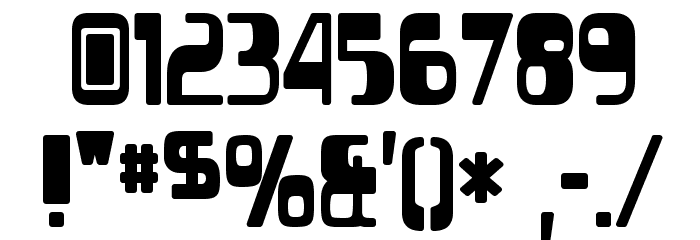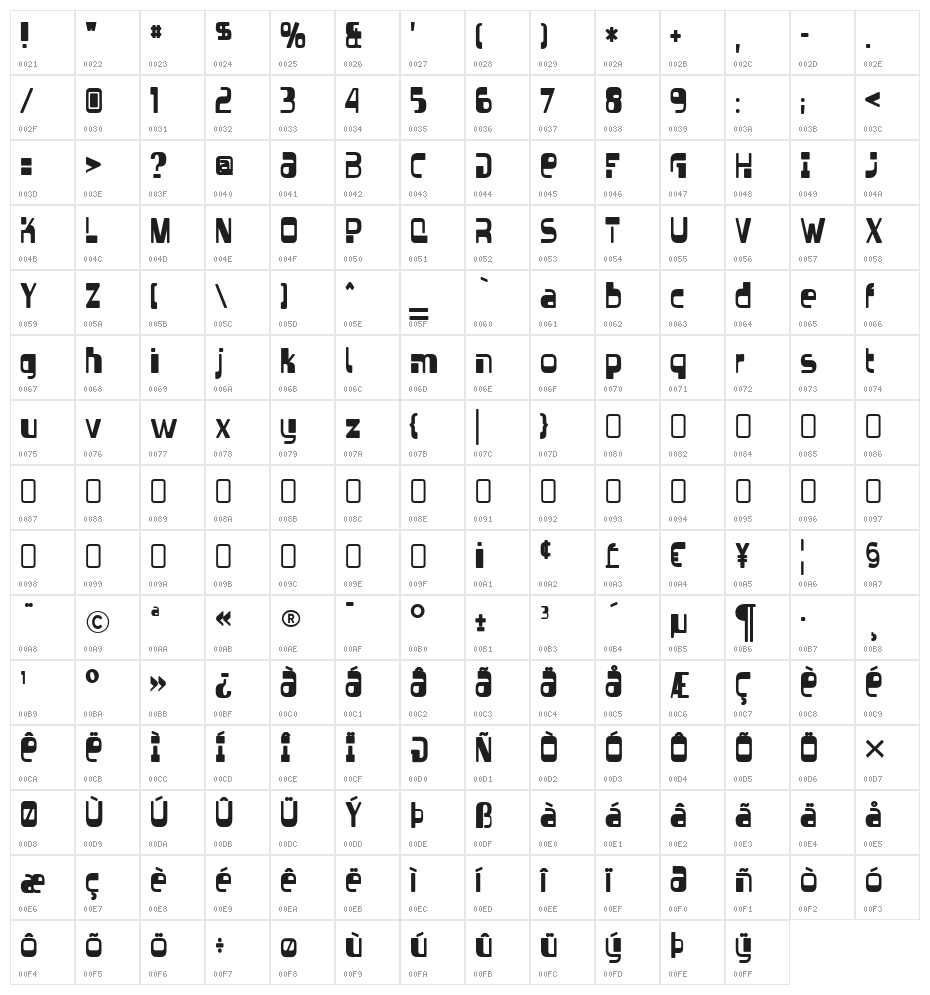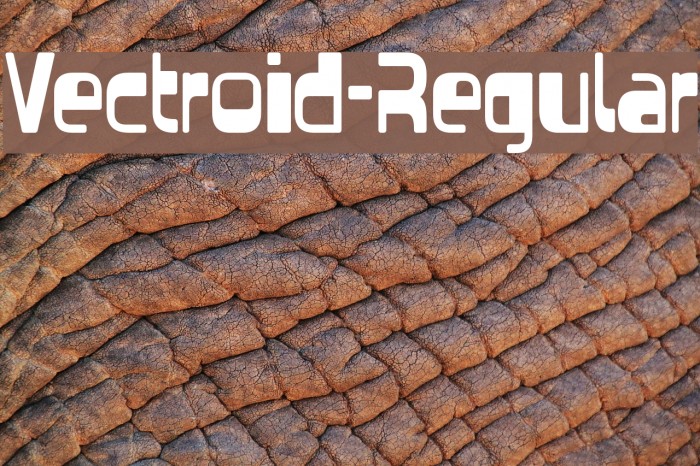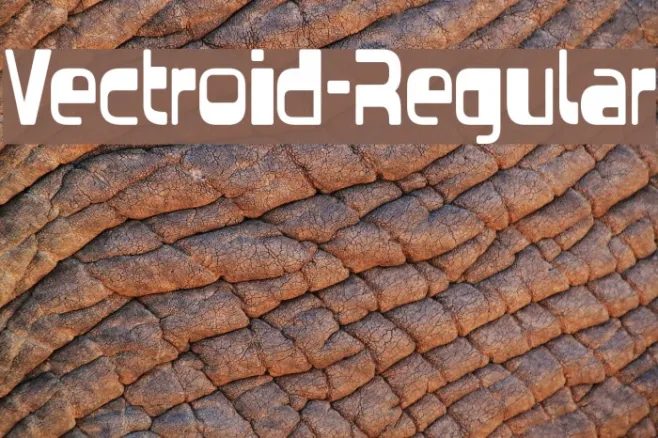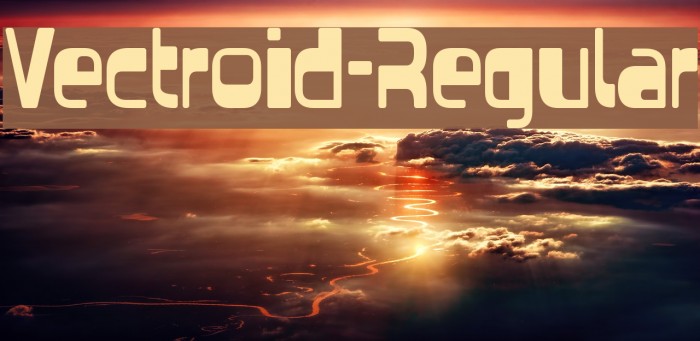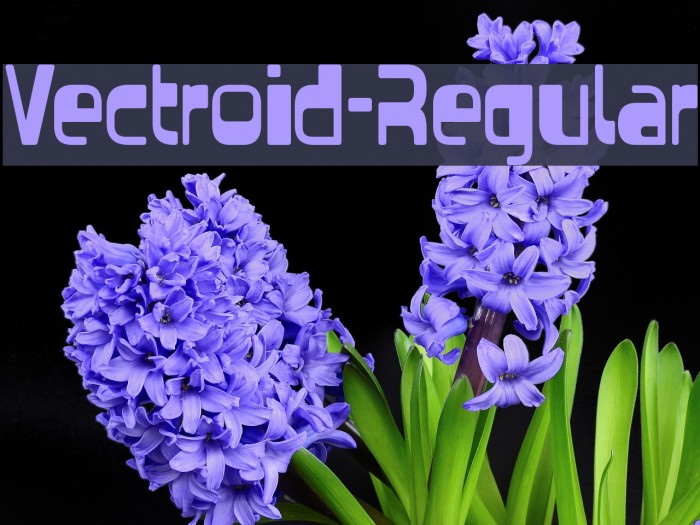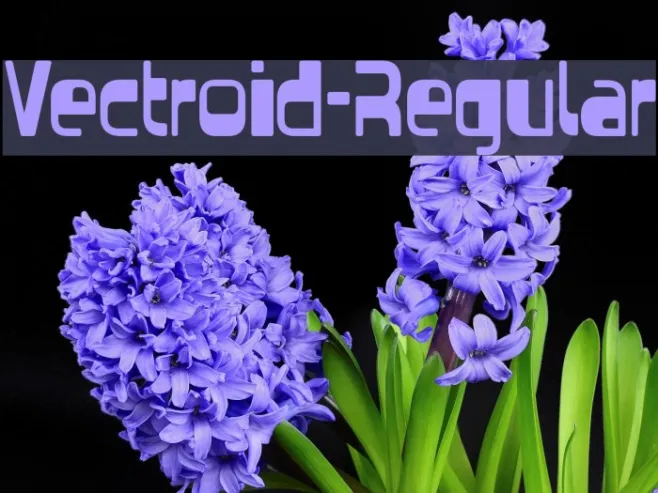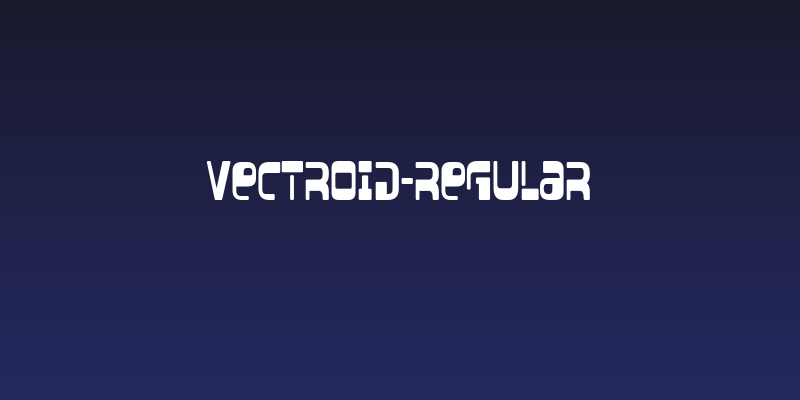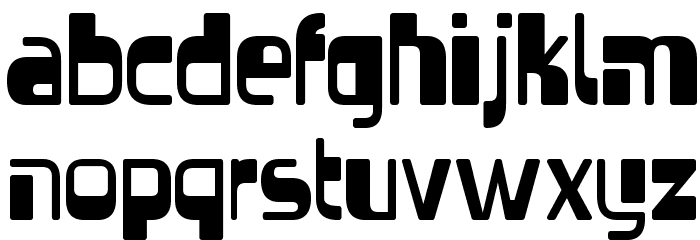
Vectroid-Regular Font
Vectroid-Regular Description
This font features a bold and futuristic design with geometric elements that create a strong visual impact. The characters are constructed with a combination of sharp angles and rounded edges, giving it a unique and modern appearance. The uppercase and lowercase letters maintain a consistent style, with a focus on readability and distinctiveness. The numerals and special characters complement the overall design, making it versatile for various applications. Its boldness and unique style make it suitable for projects that require a standout typeface.
| Proposed Projects | Ideal for technology branding, sci-fi posters, video game titles, and modern advertising campaigns. |